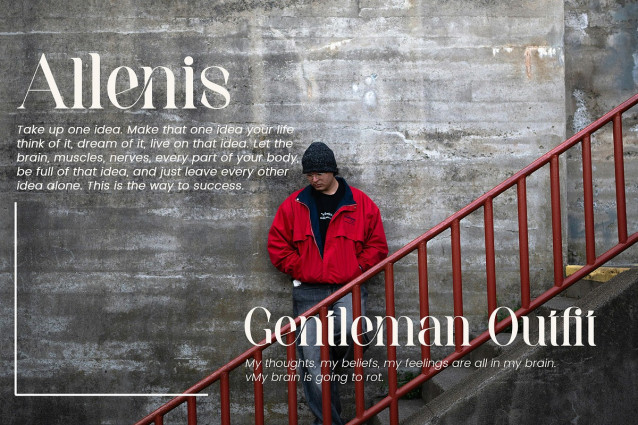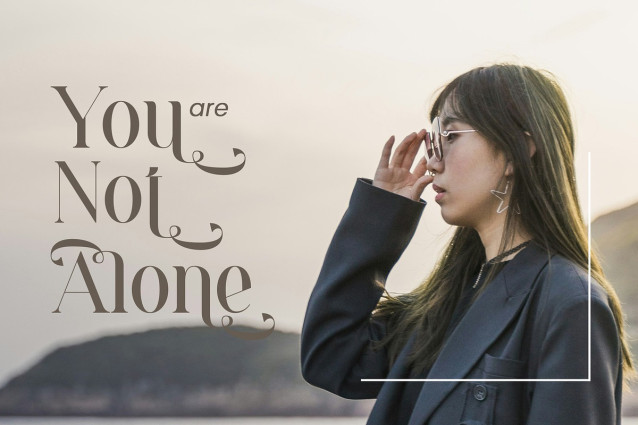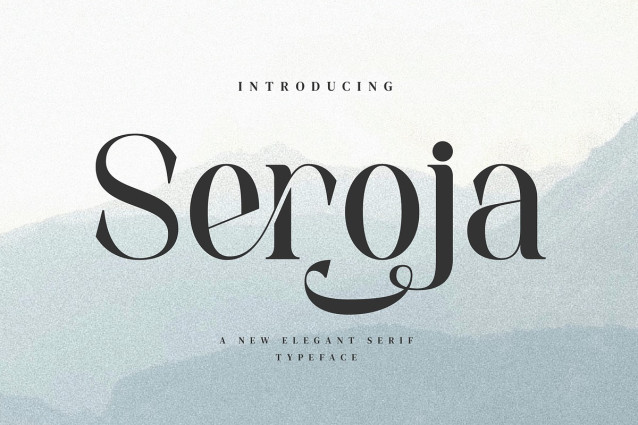
Seroja Font
Seroja Font – Stylish Ligature Typeface, inspired by the famous minimalist logo perfect for the purposes of designing templates, brochures, videos, advertising branding, logos and more.